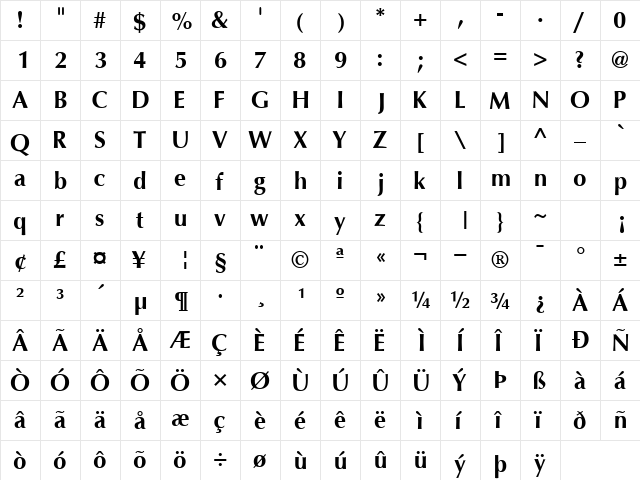
InterfaceSSK Bold
Design Context for InterfaceSSK Typeface
InterfaceSSK offers clean, dependable letterforms without strong stylistic allegiance, making it a practical choice for designers who need flexibility. The heavy weight commands attention and anchors typographic hierarchies.